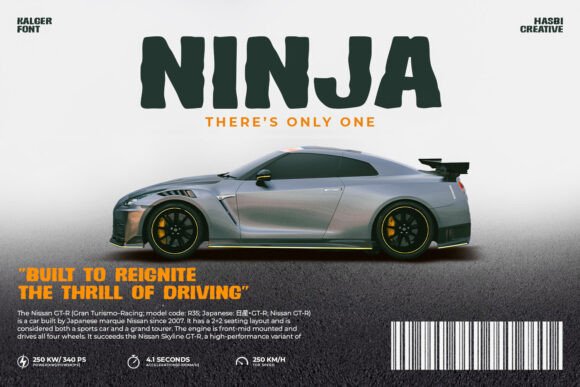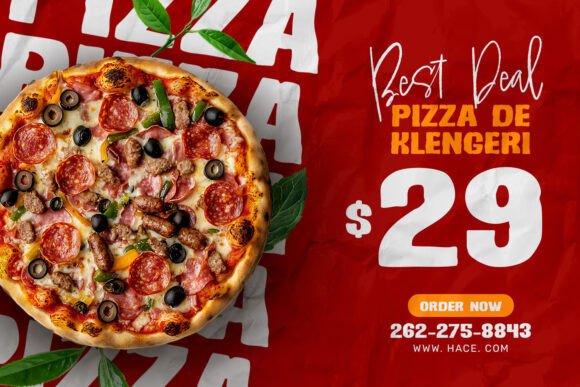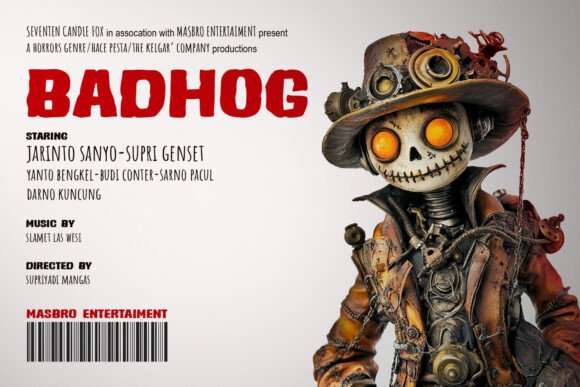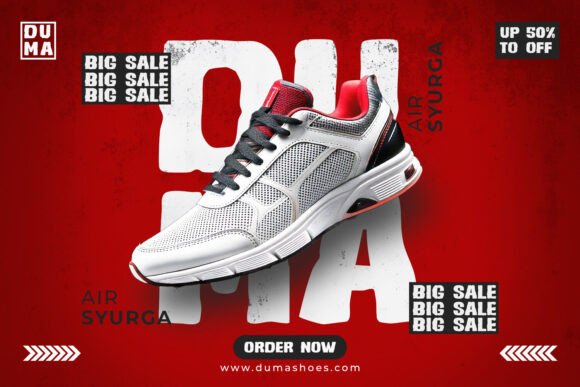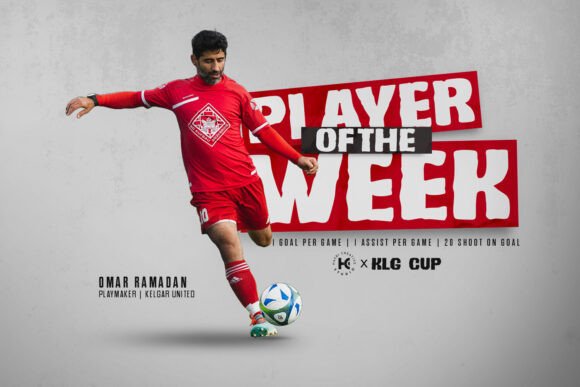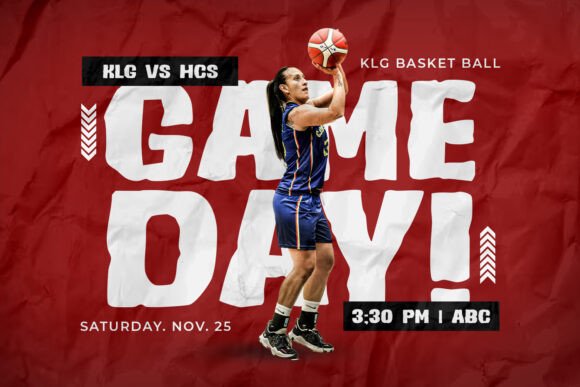
Introduction to Kelgar Font
Kelgar Display is a bold, abstract hand-drawn font that adds character and creativity to titles and headlines.
Perfect for movie posters, social media, and branding across food, sports, and automotive industries, it delivers dynamic, expressive style with its unique, handcrafted strokes .
Key Features of Kelgar Font